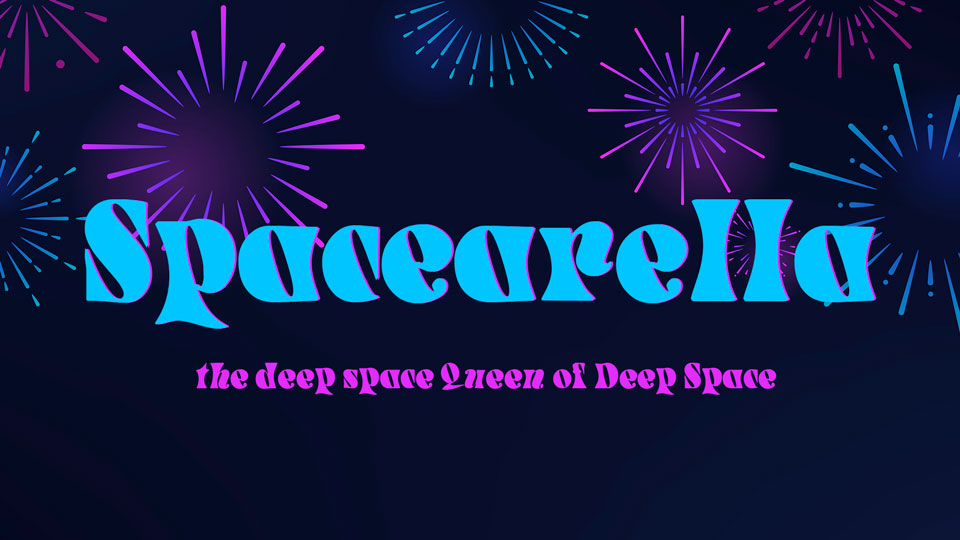
Download Spacearella font, a funky retro typeface with a groovy fat look. Spacearella font is perfect for posters, headlines, logos, banners and other artworks.
Designer: Brain Eaters Font Co.